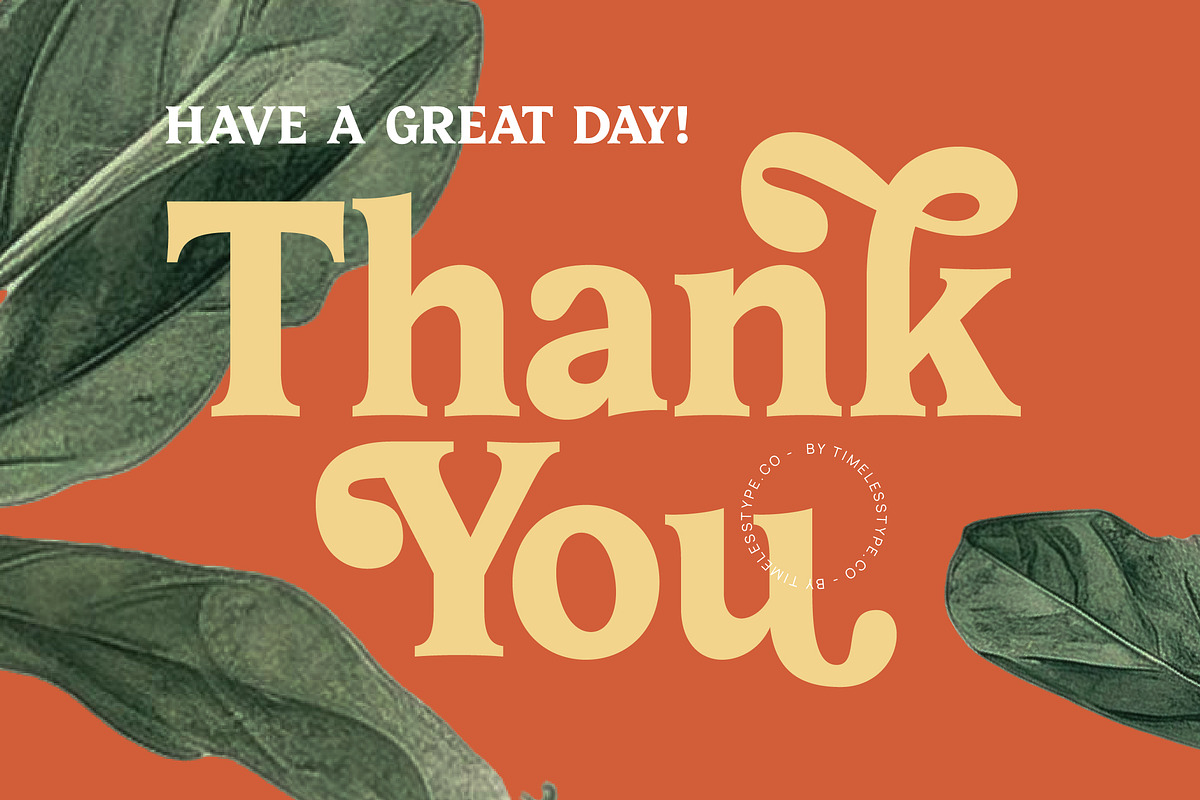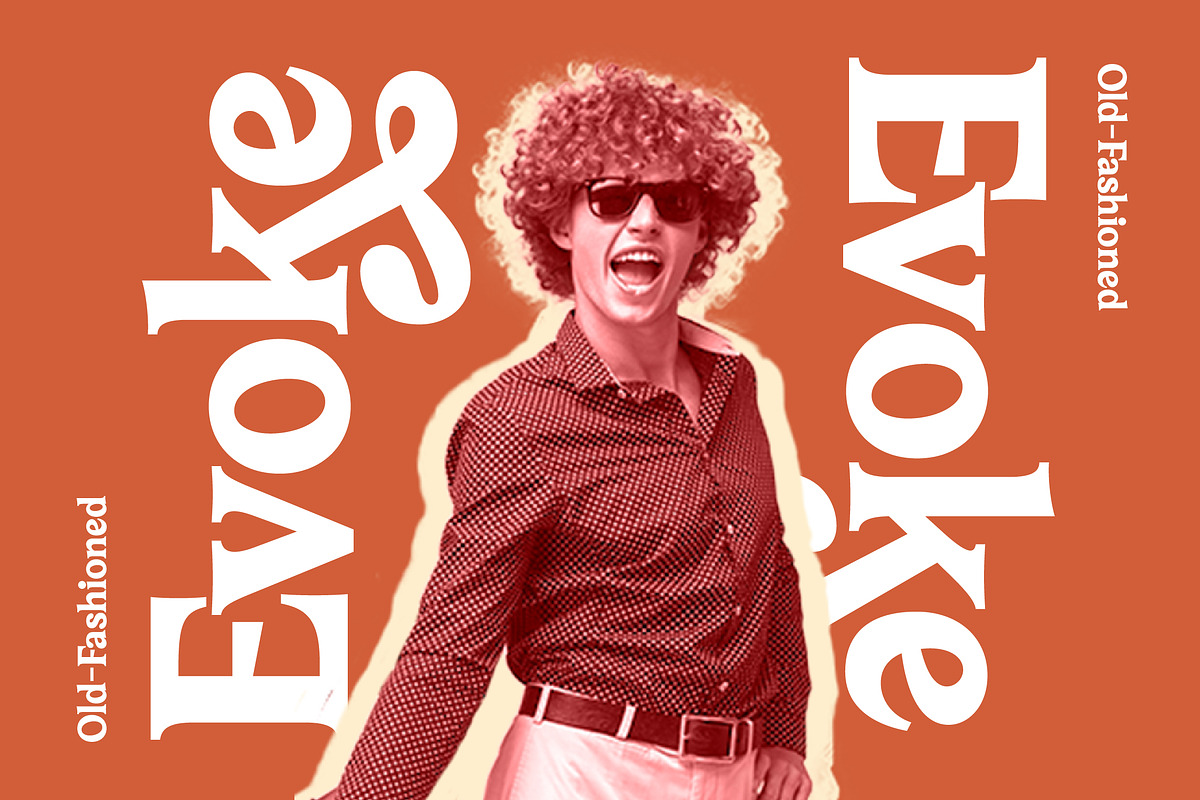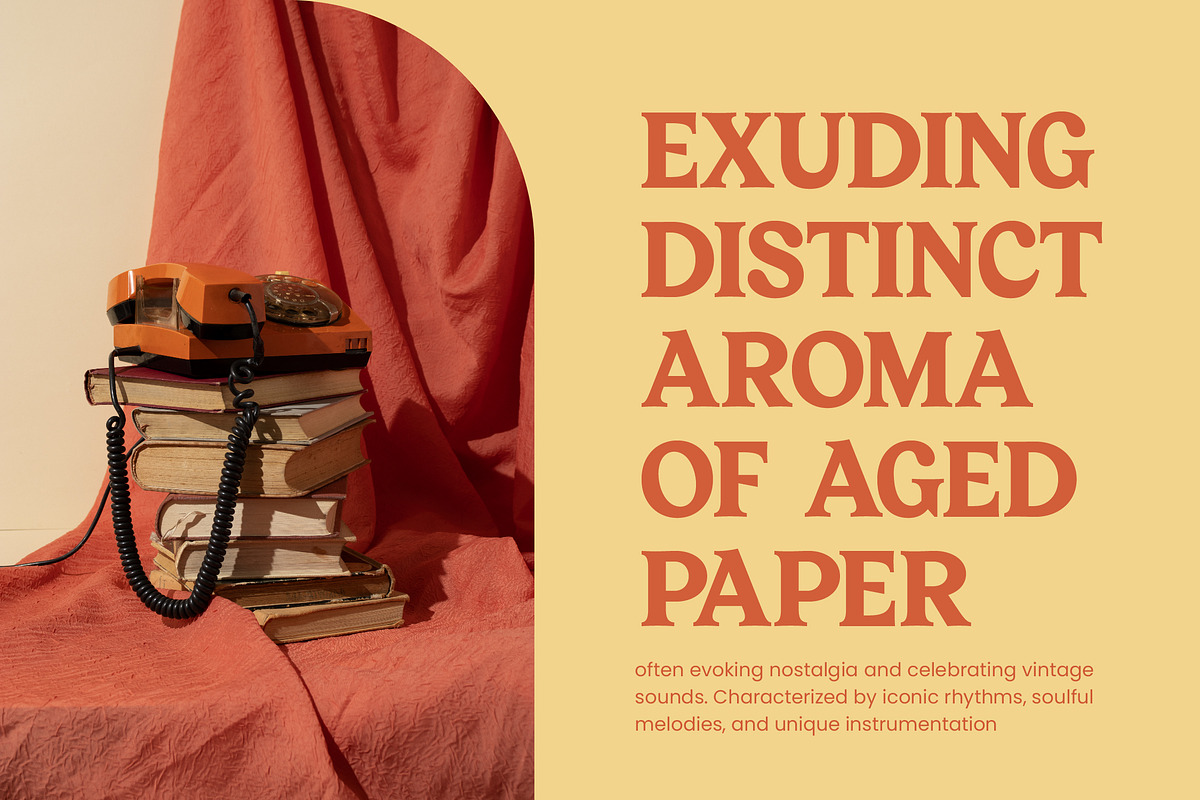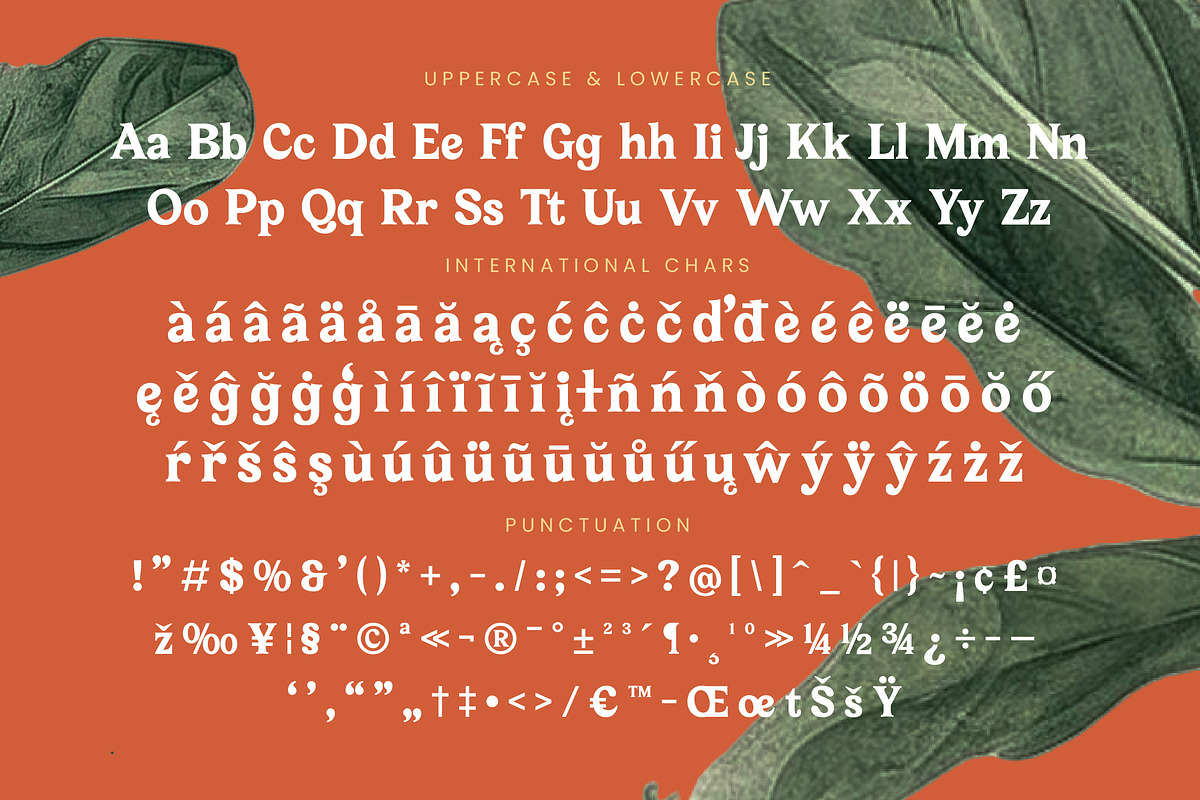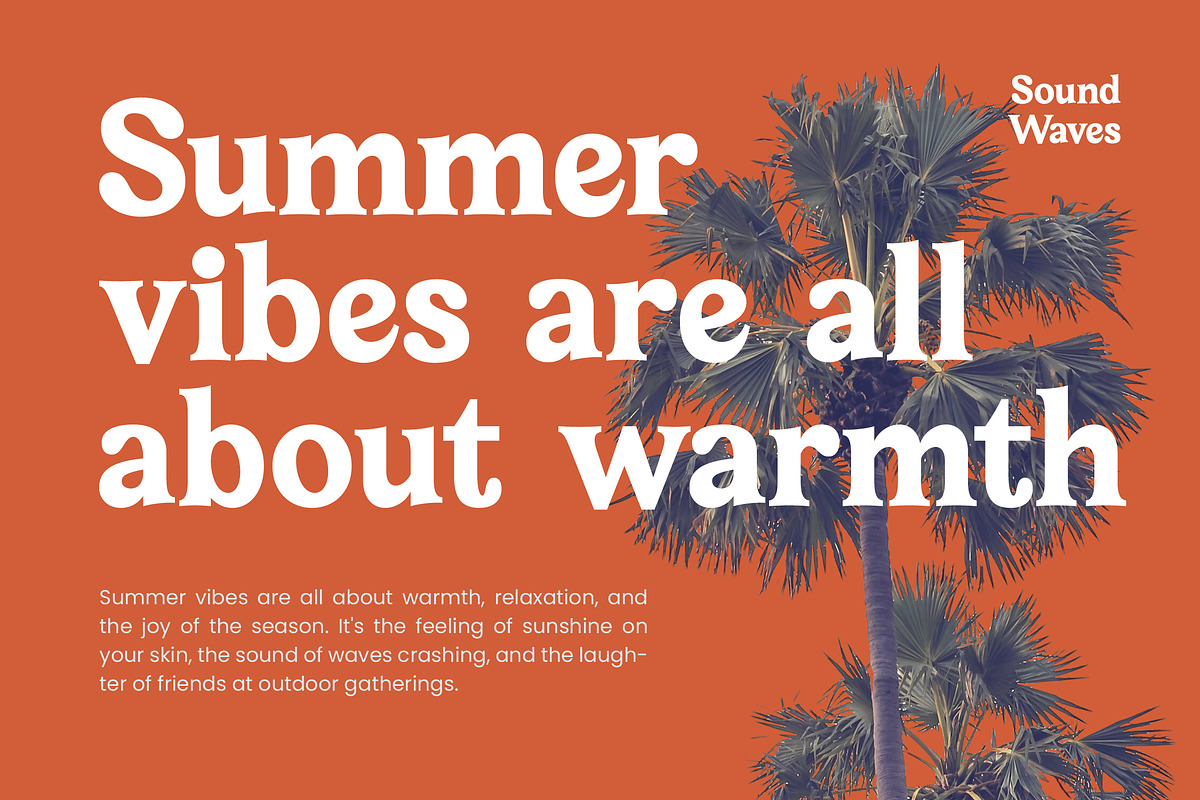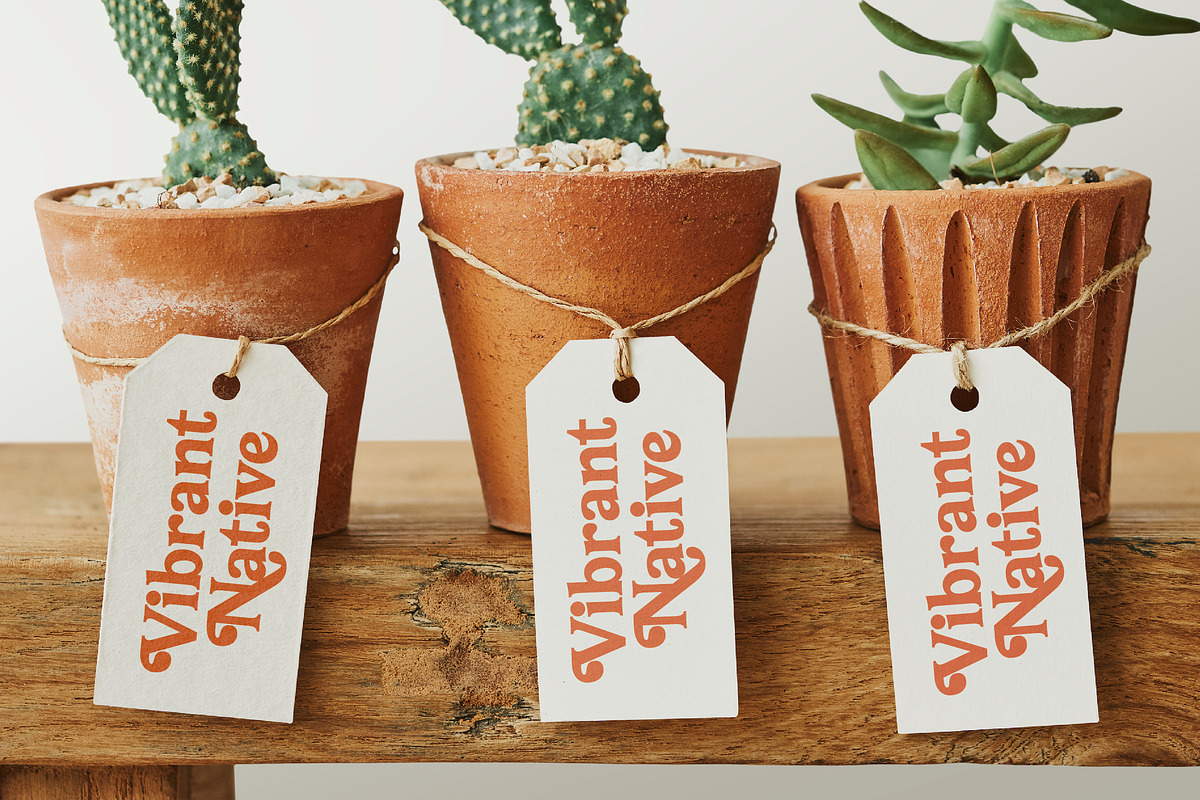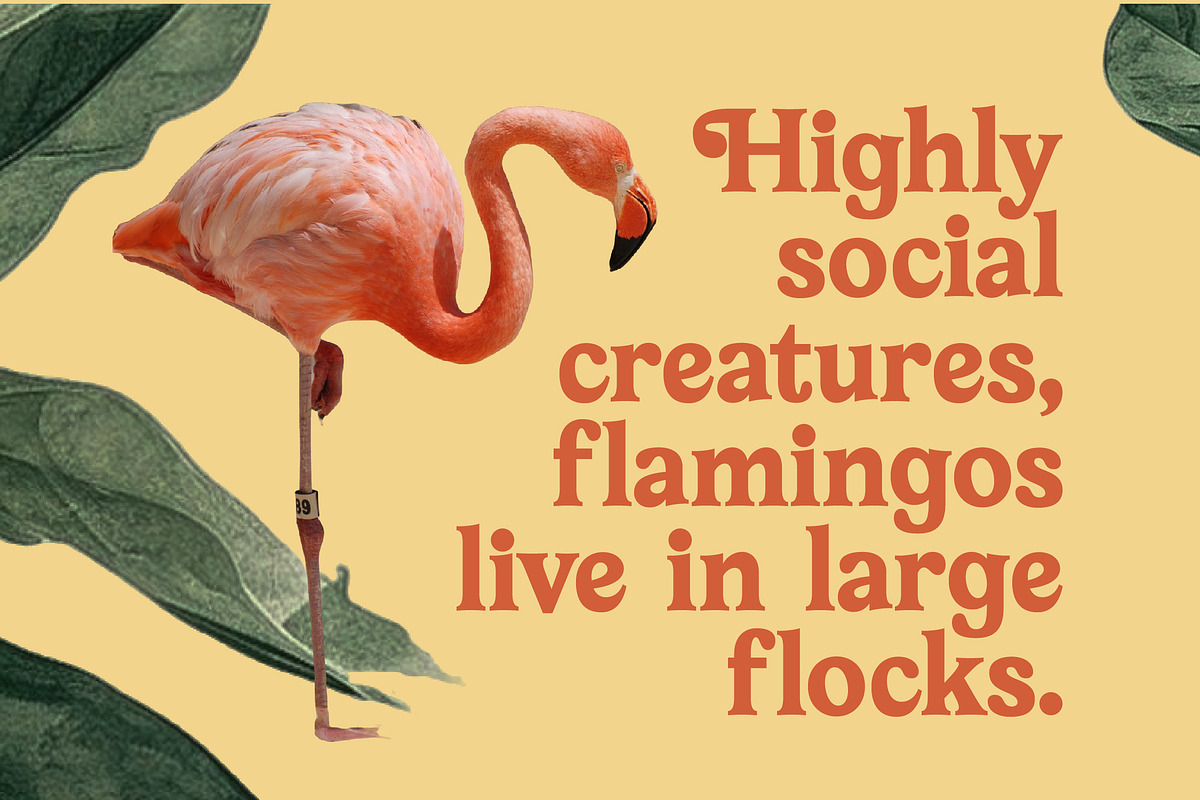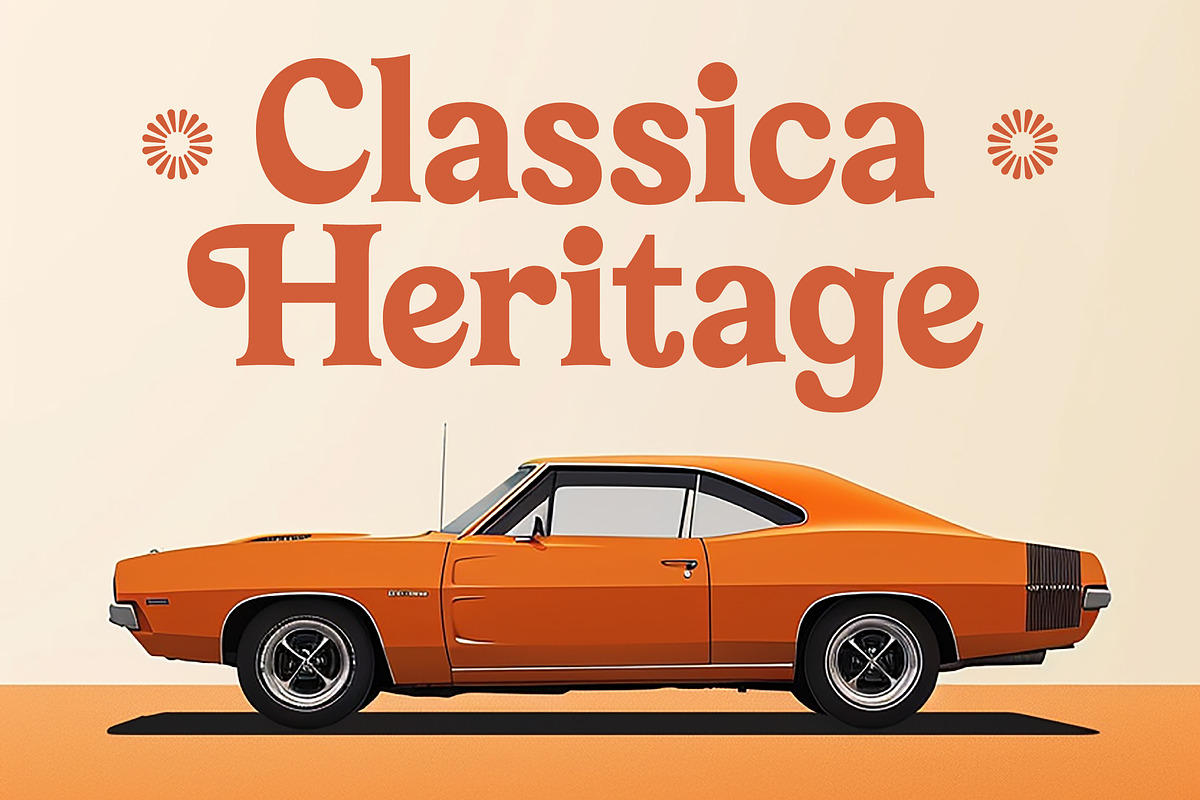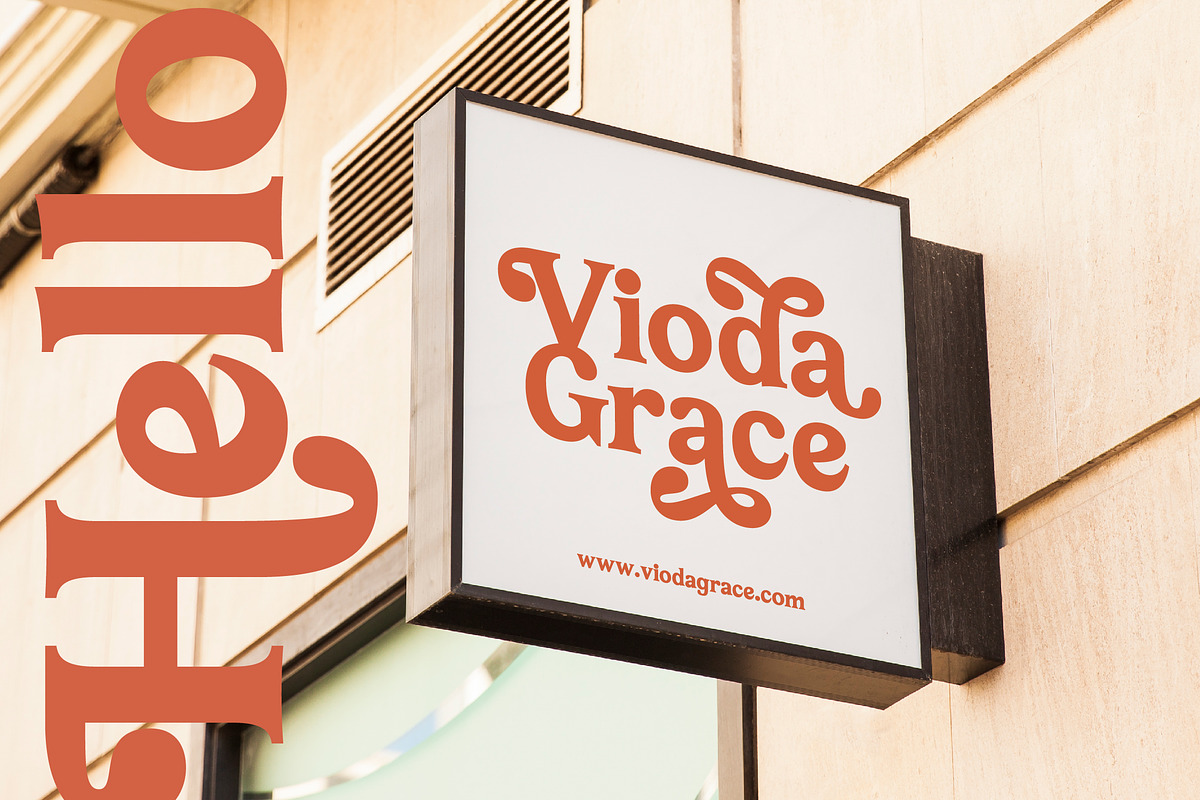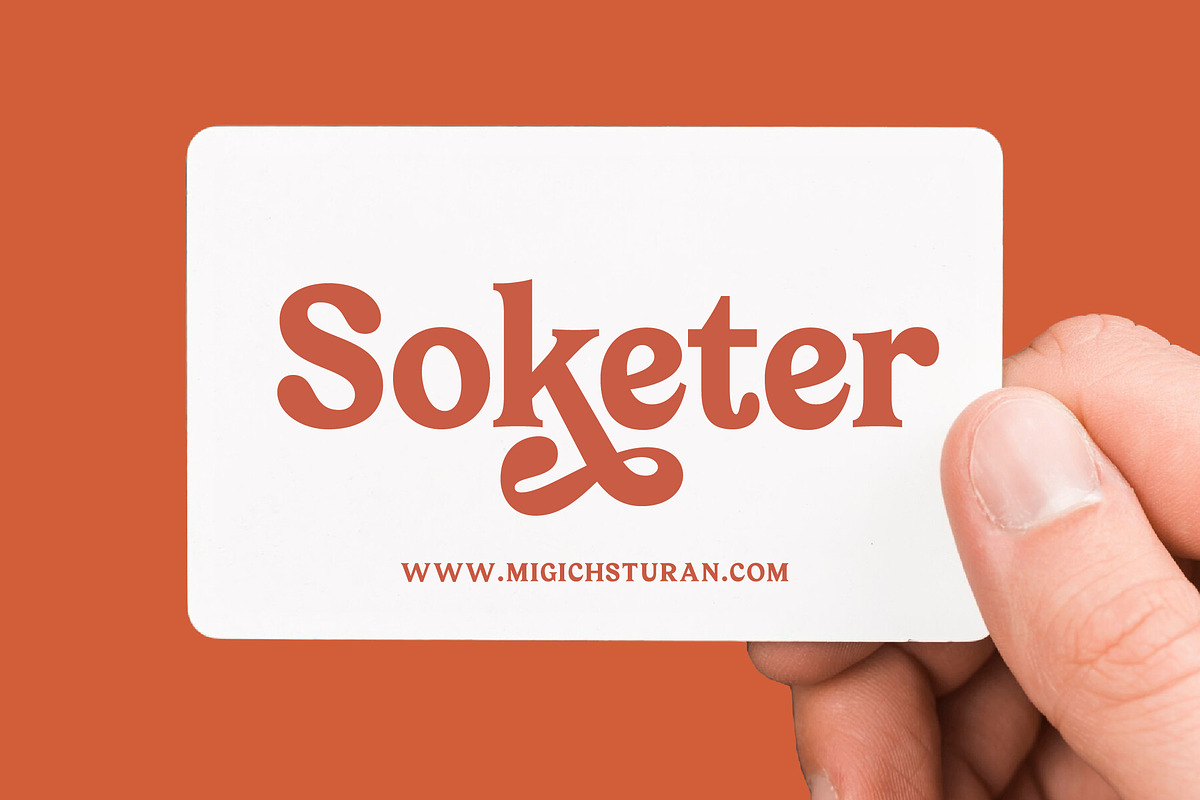
Bailey Retora Groovy Retro Serif
Elevate your designs with the rhythmic elegance of Bailey Retora, a typeface that dances between nostalgic charm and modern sophistication. It is crafted to turn every word into a visual centerpiece that commands attention and evokes deep emotion.
Drawing inspiration from the vibrant art and soulful music of the 1970s, this typeface captures the essence of a bygone era reimagined for today's creative landscape. The flowing curves and organic shapes mirror the botanical beauty found in nature, offering a grounded yet whimsical atmosphere.
As a modern serif display, this typeface delivers a powerful branding impact through its unique high-contrast serif details and luxury typography feel. It is a versatile editorial font that balances bold weight with delicate strokes, ensuring your headers are as stylish as they are legible.
Staying ahead of the modern serif trend, this font meets the demand for character-driven typography that breaks away from the ordinary. It fits perfectly within the current wave of editorial display fonts that prioritize personality and artistic flair over sterile minimalism.
This font is the perfect choice for high-end logo design and comprehensive branding projects where a distinctive voice is required. Its versatility extends beautifully to editorial layouts, artisanal packaging, romantic wedding stationery, and avant-garde fashion lookbooks.
This comprehensive typeface package includes a rich set of over 50 alternates and 5 unique ligatures to customize your text. It also features a full suite of international characters and multilingual support, along with decorative swashes for global creative expression.
- Ligature 5 Alternate 50